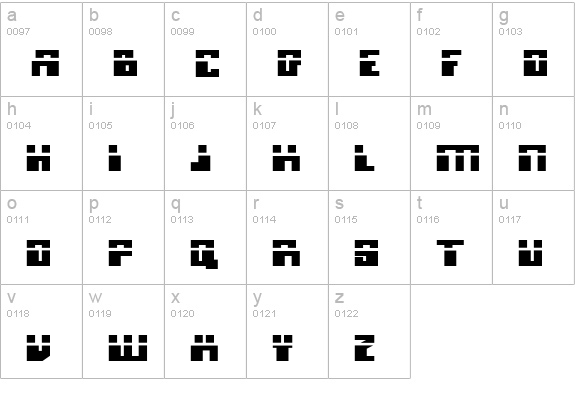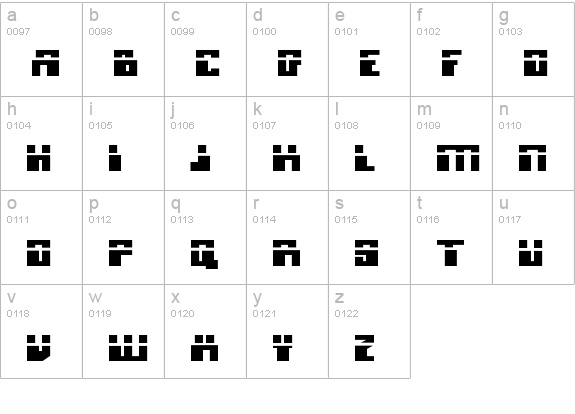
Introducing Micronian Laser font, a futuristic and sleek typeface that will bring a touch of modernity to your designs. This cutting-edge font features sharp lines and a high-tech aesthetic, perfect for projects that require a contemporary look. Whether you're designing a website, poster, or logo, Micronian Laser font will surely make a bold statement. The best part? Micronian Laser font is available for free download at FontsMarket.com. So why wait? Elevate your designs with this striking font today and impress your audience with its avant-garde style. Download Micronian Laser font now and let your creativity shine!